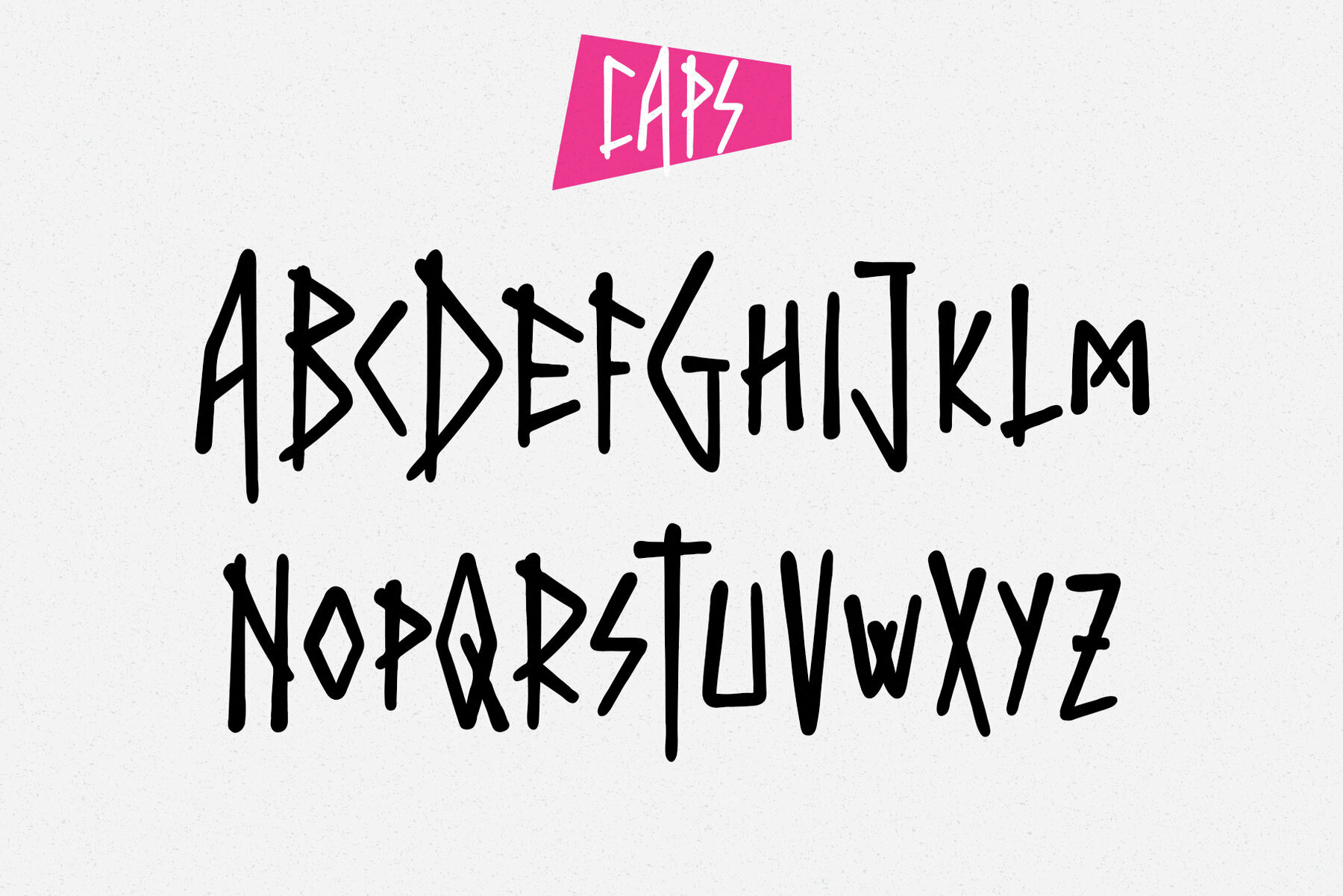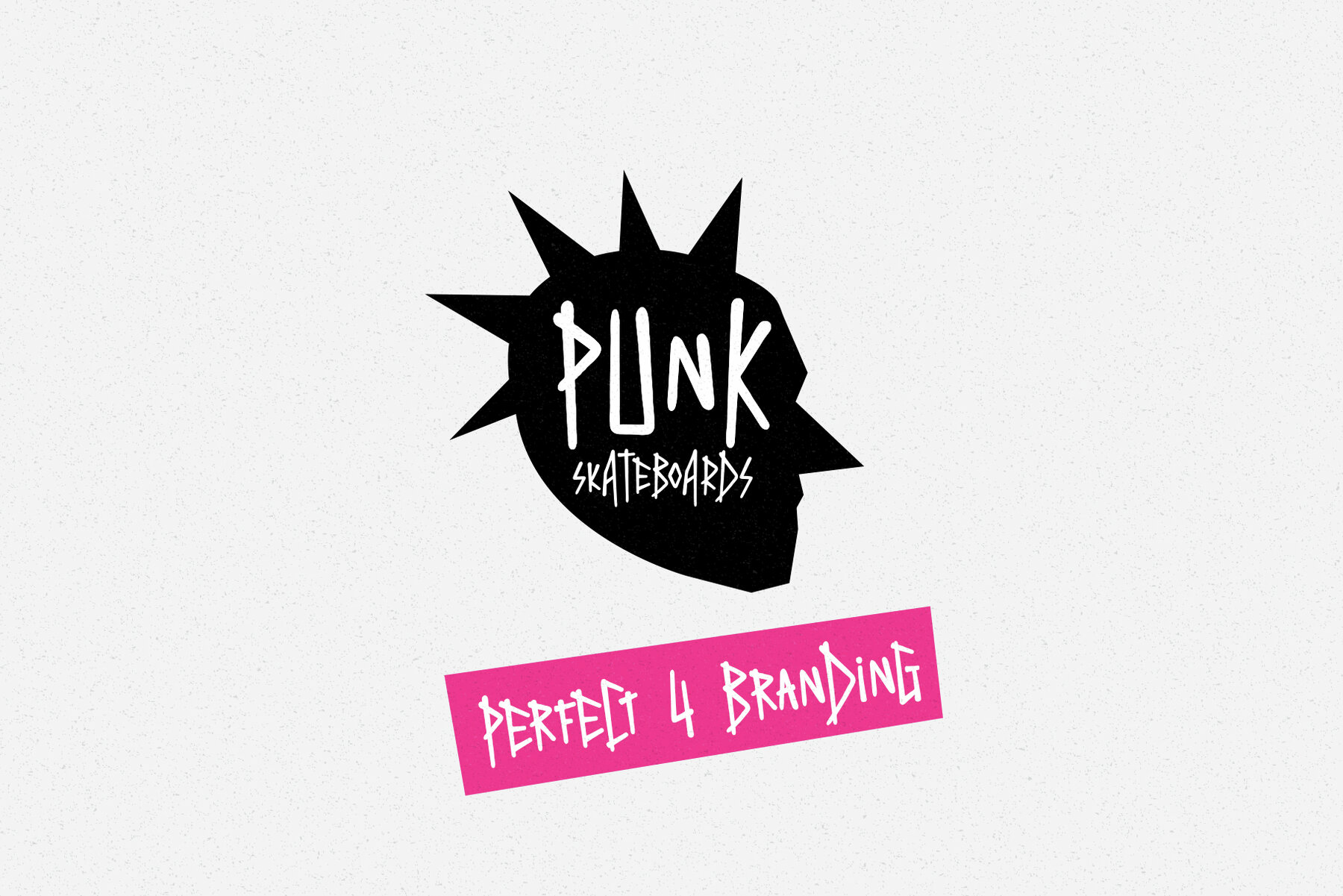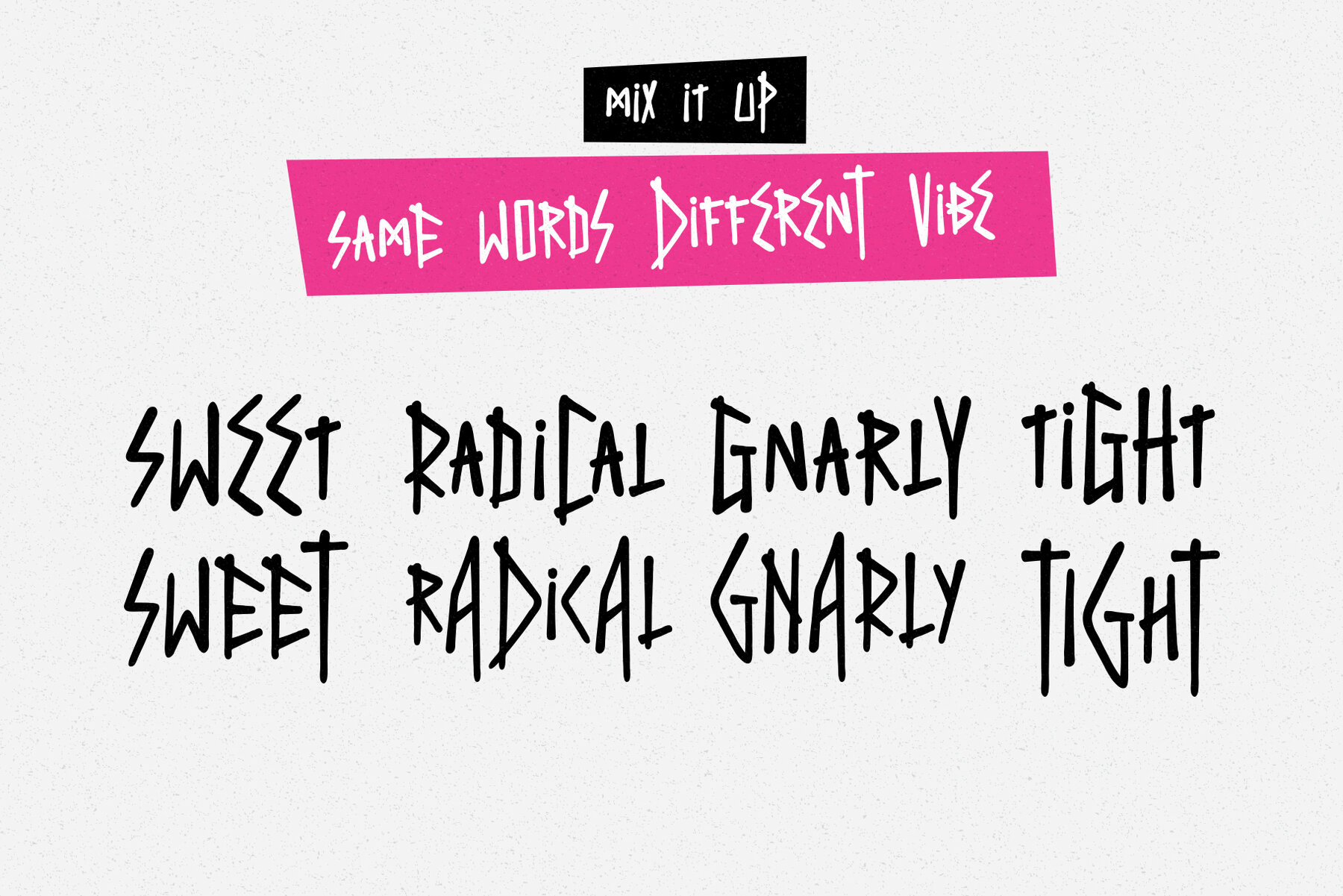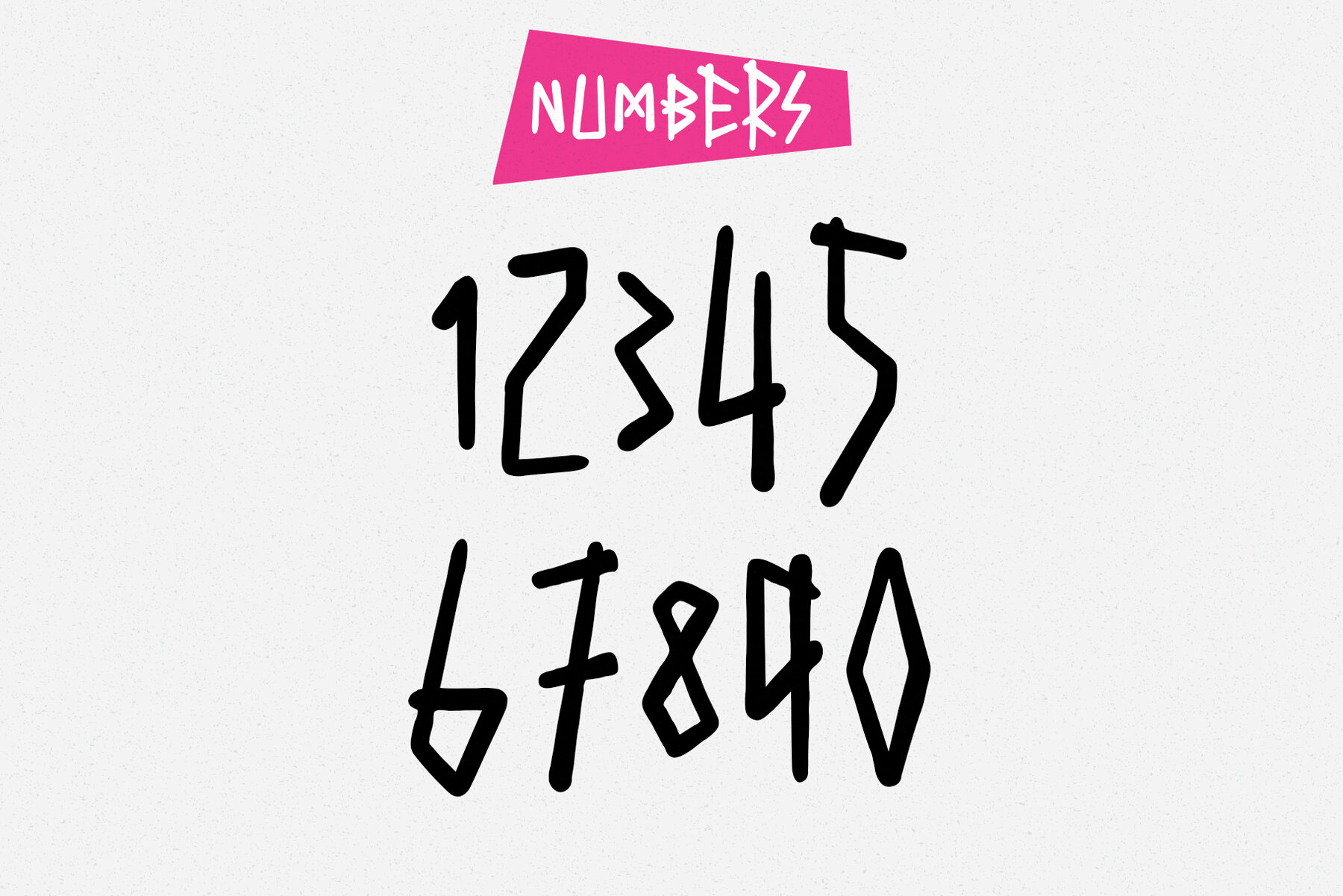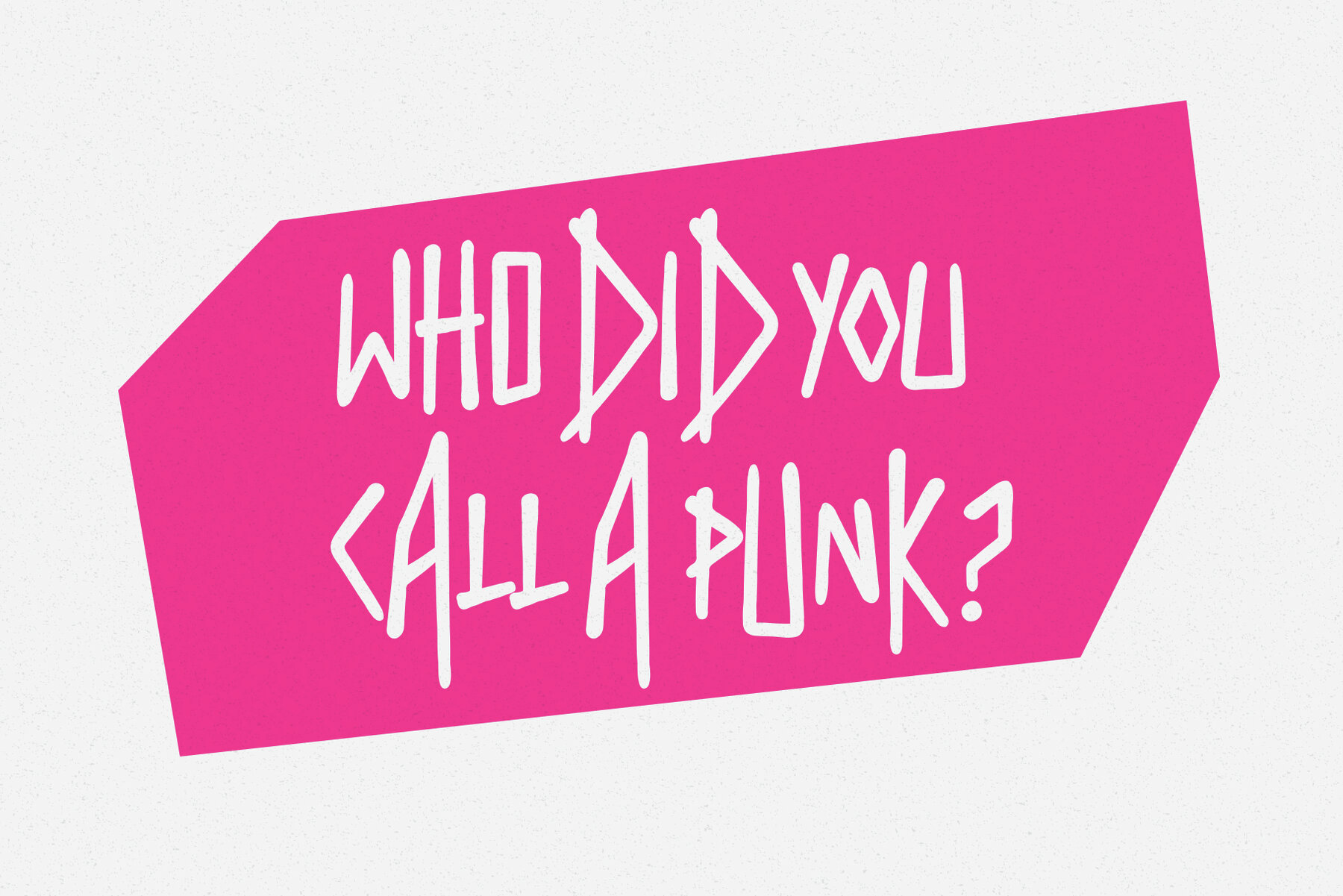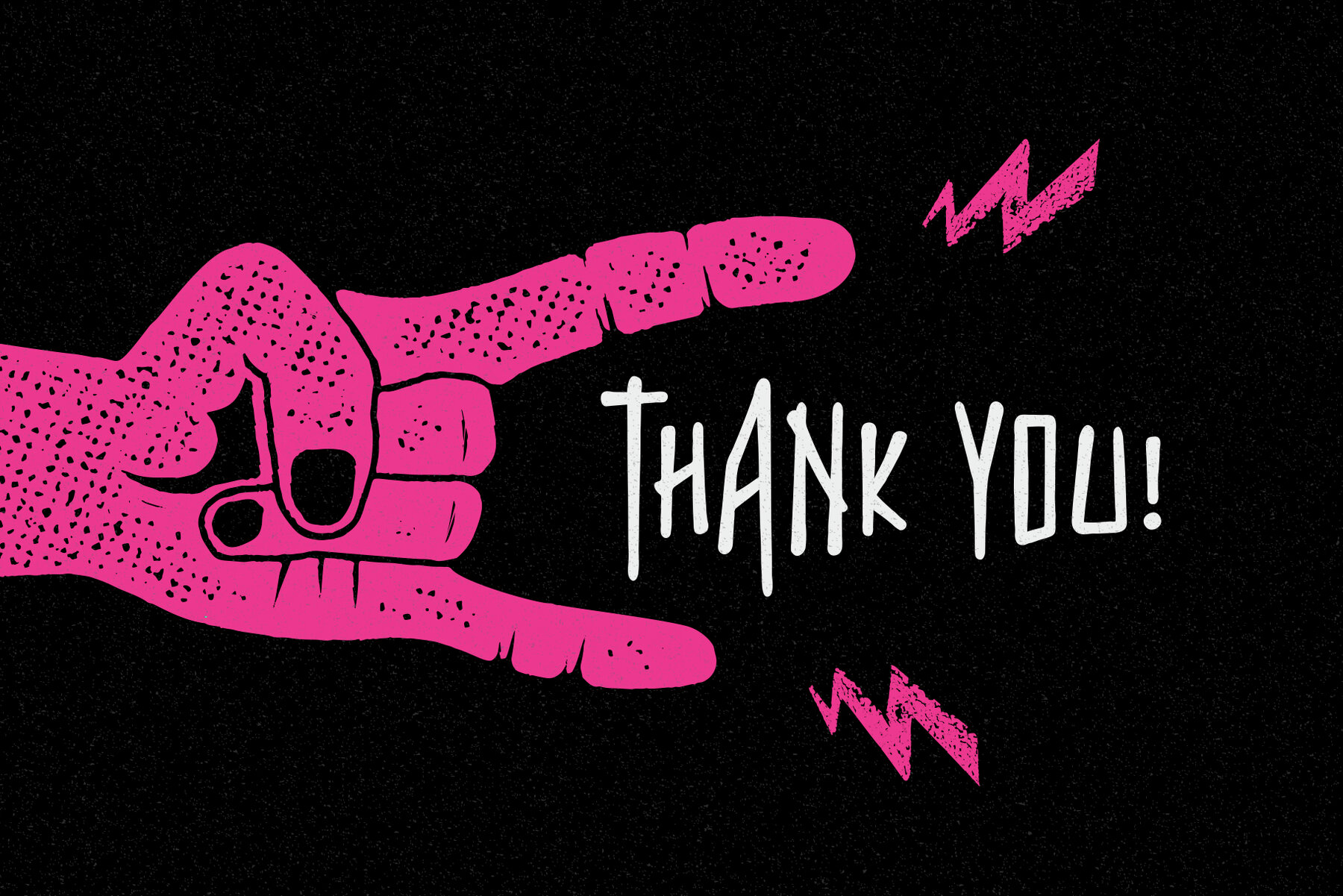
Misfit Font
Misfit Regular
Misfit is a decorative display typeface inspired by the rebellious spirit of the 1990s punk scene. It is an ideal choice for posters, headlines, album covers, apparel, and logos, providing a distinct and edgy look. This all-caps font includes punctuation and numerals, offering versatility for various design projects.
With the ability to mix small and low caps, Misfit allows for unique and creative typographic combinations. This characteristic makes it perfect for designers looking to add a raw, dynamic touch to their work. Misfit's strong, unconventional aesthetic captures the essence of punk, making it a standout option for projects that aim to break the mold.